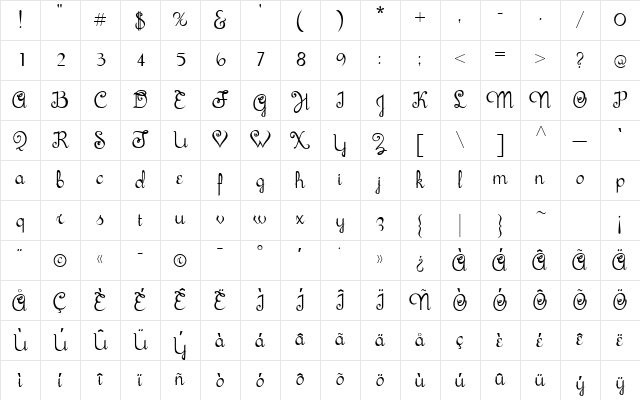
Complete Sachiko Regular glyph index. Displaying only characters natively supported by Sachiko Regular font.
Sachiko is a composed and adaptable typeface that performs quietly and consistently across a wide range of design contexts.